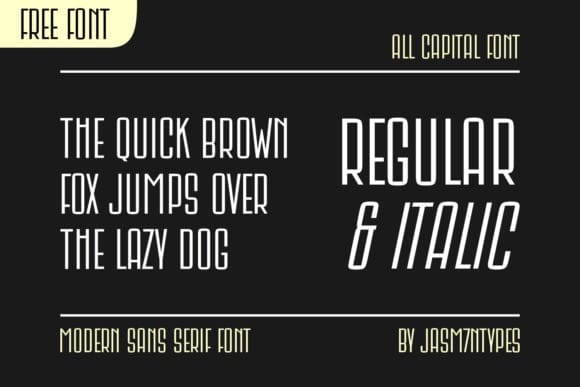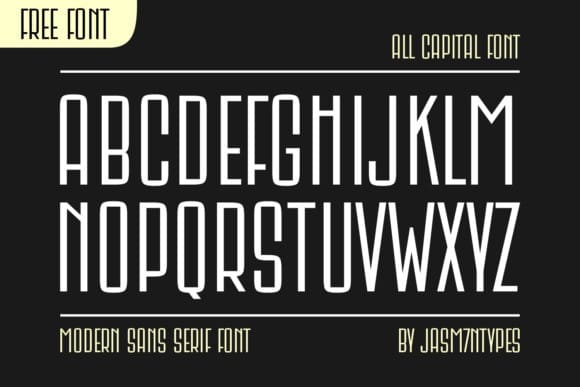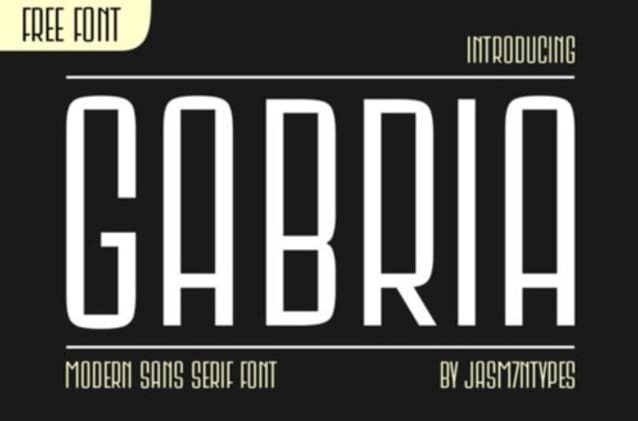
Gabria Font is a bold, all caps sans serif font featuring the perfect amount of trendiness. Whether you’re using it for crafting, digital designing, presentations or greeting cards making, it’s perfect!
| Designer Name: | Jasm7ntypes |
| Classification: | Display Fonts, Sans Serif Fonts |